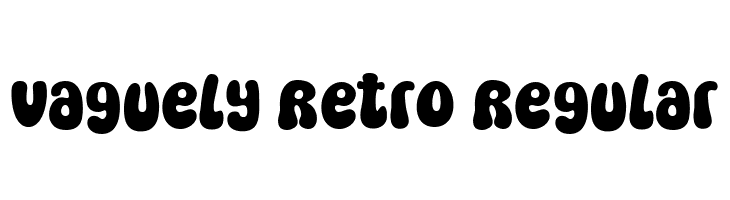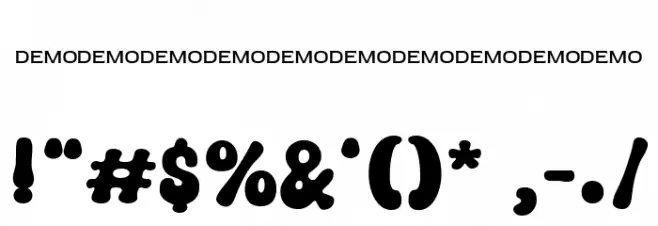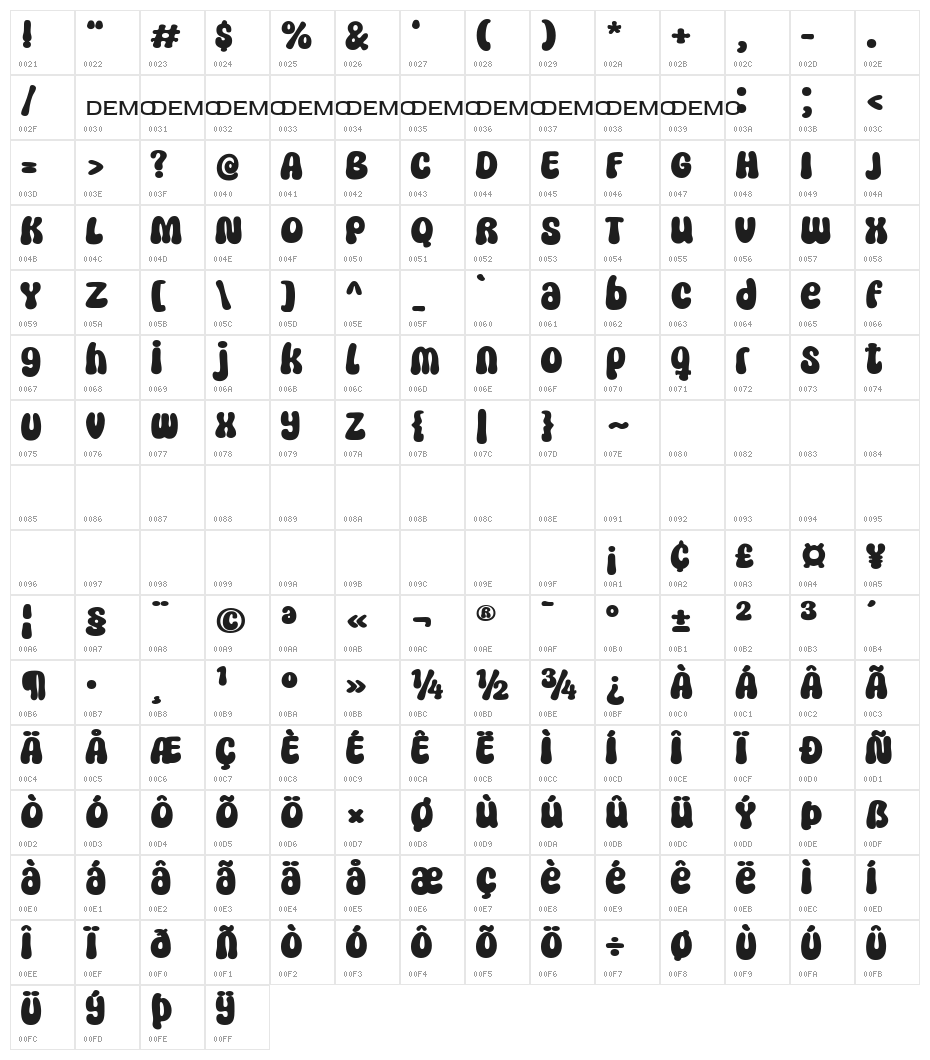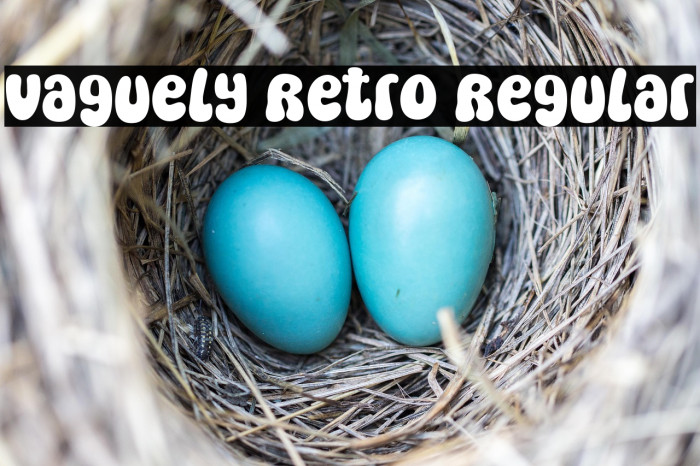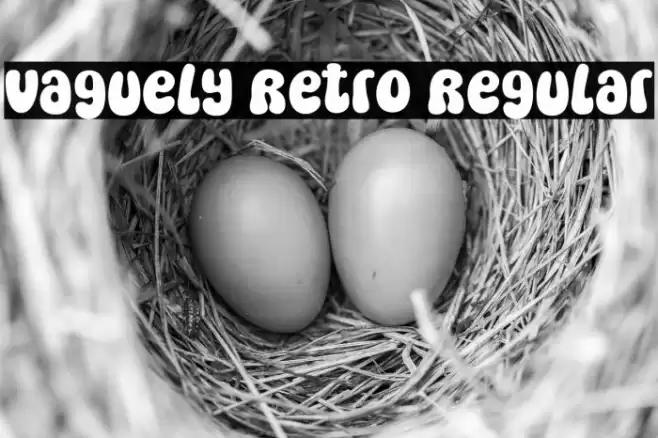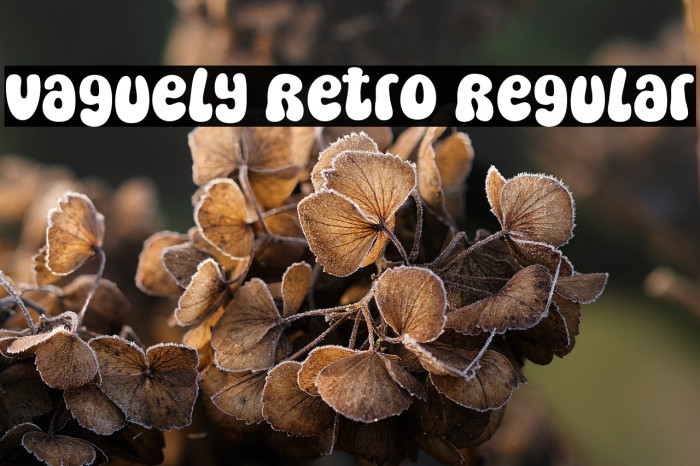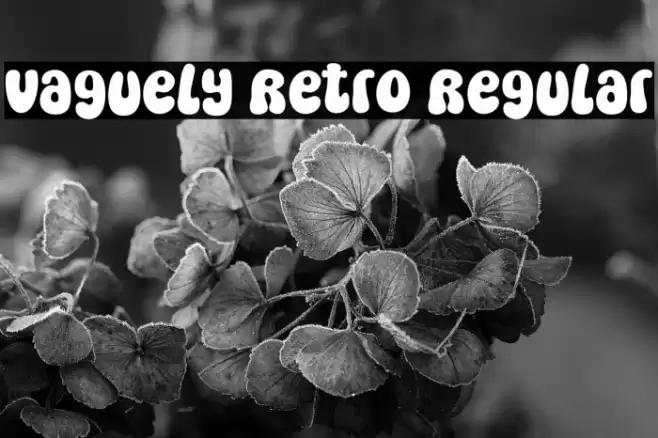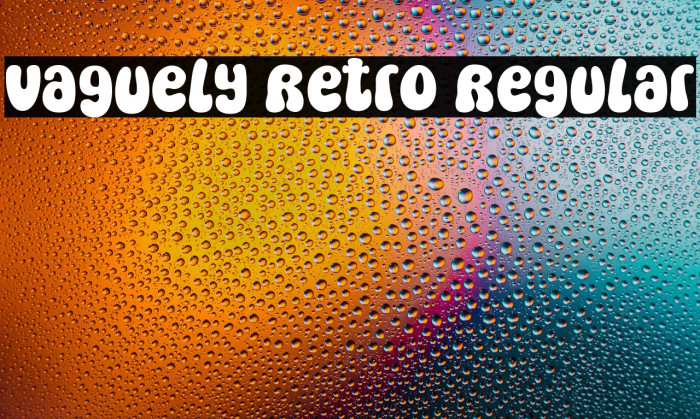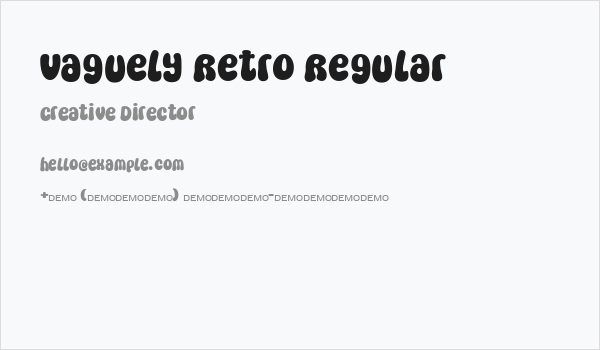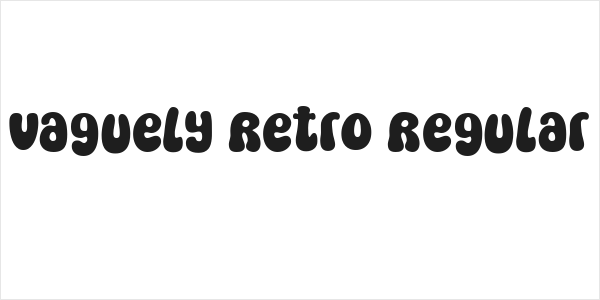
Vaguely Retro Regular Font
Vaguely Retro Regular Description
This font features a playful and bold design with rounded, bubble-like characters that evoke a retro aesthetic. The letters are thick and have a soft, organic feel, making them stand out with a unique personality. The uppercase and lowercase letters maintain a consistent style, with rounded edges and a slightly inflated appearance. The numbers and special characters follow the same design principles, ensuring a cohesive look across all glyphs. This font's distinctive style is reminiscent of 1970s design trends, offering a nostalgic yet fresh appeal.
| Overall Style | Retro, Playful |
| Proposed Projects | Ideal for retro-themed posters, playful branding, children's books, and creative advertising campaigns. |